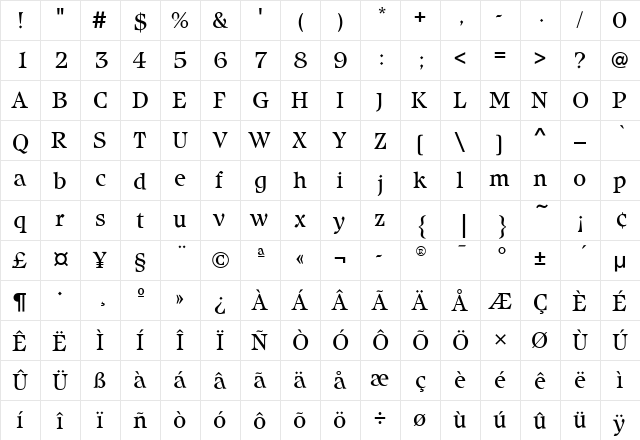
IsbellITC Book
Design Context for IsbellITC Typeface
IsbellITC offers clean, dependable letterforms without strong stylistic allegiance, making it a practical choice for designers who need flexibility.
Pro Tip: Pair IsbellITC with a font of contrasting weight or personality to build a more expressive typographic hierarchy.